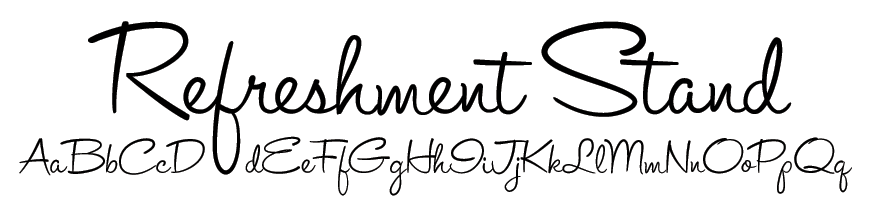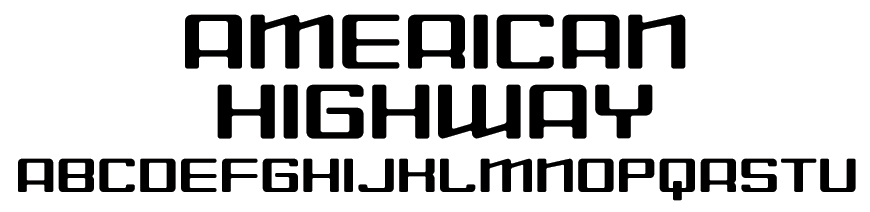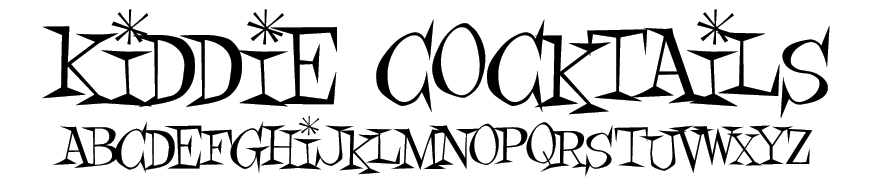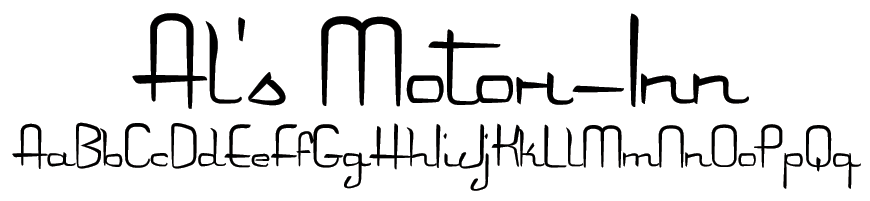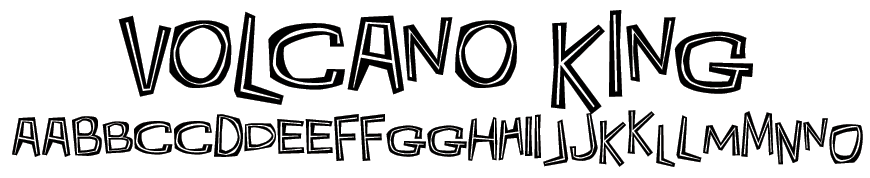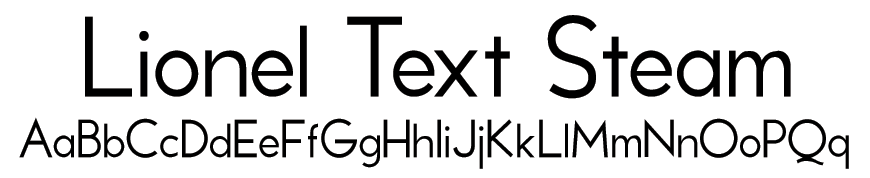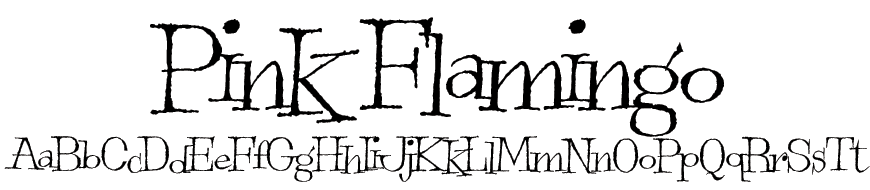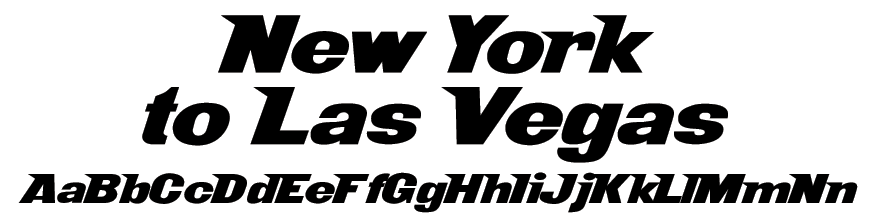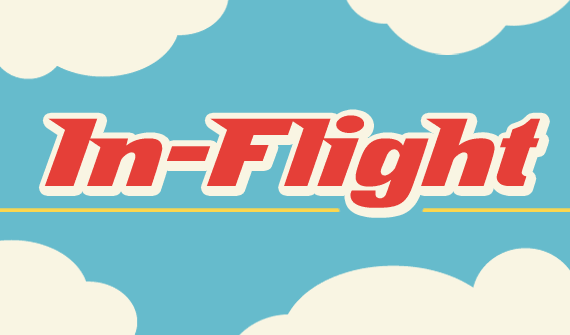
Elevate your designs with the In-Flight Meal Font Set! Enjoy this wonderful collection inspired by vintage aviation and cocktail culture of the 1960s featuring jumpy latin styles, classic sans serif and futuristic speed script fonts!
In-Flight Meal Font Set
Includes 12 Fonts